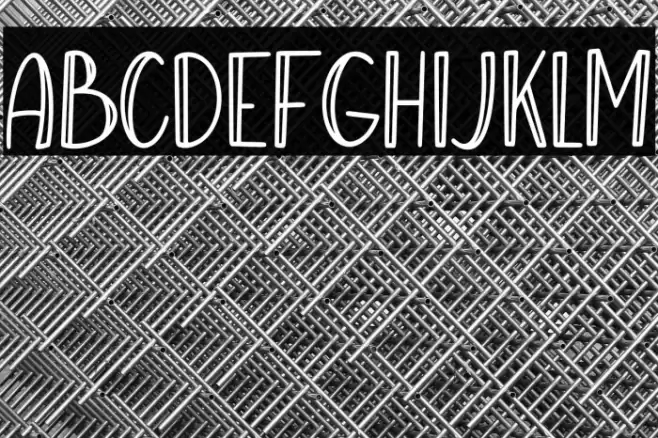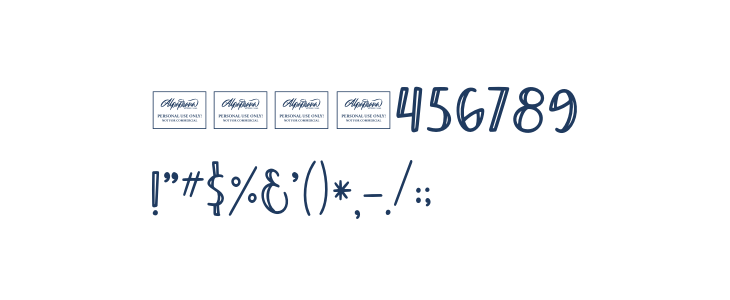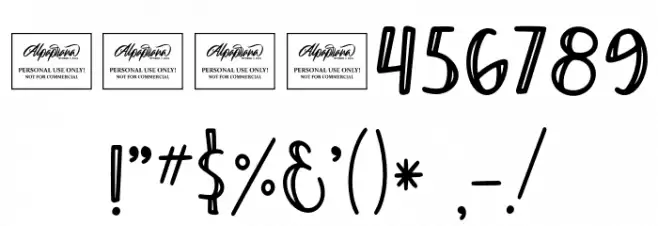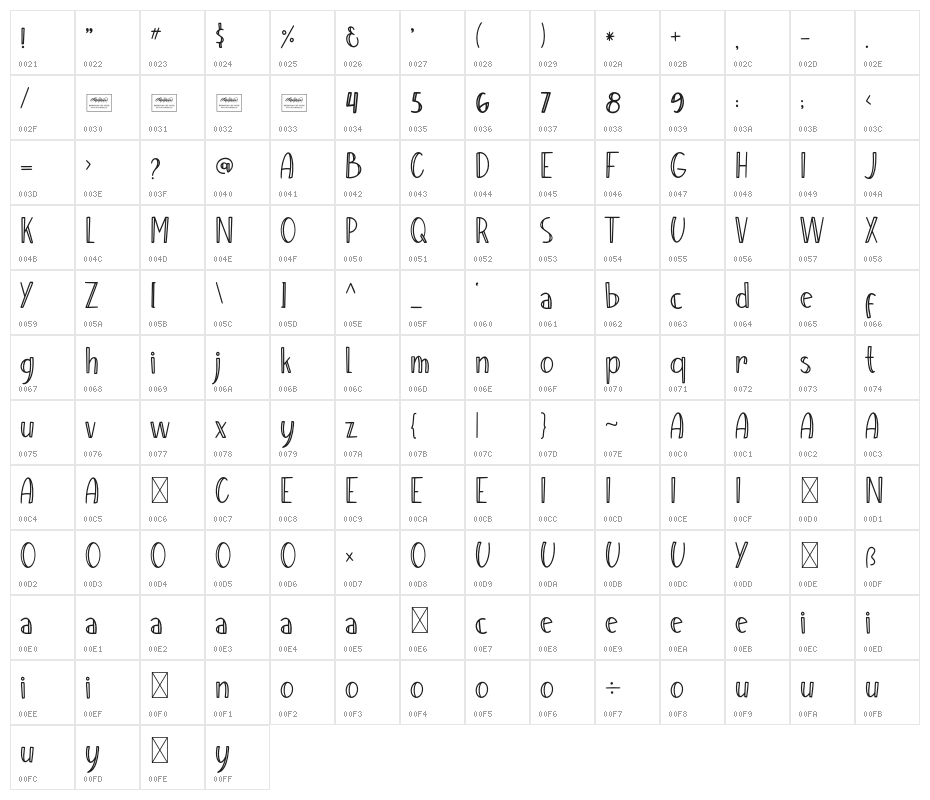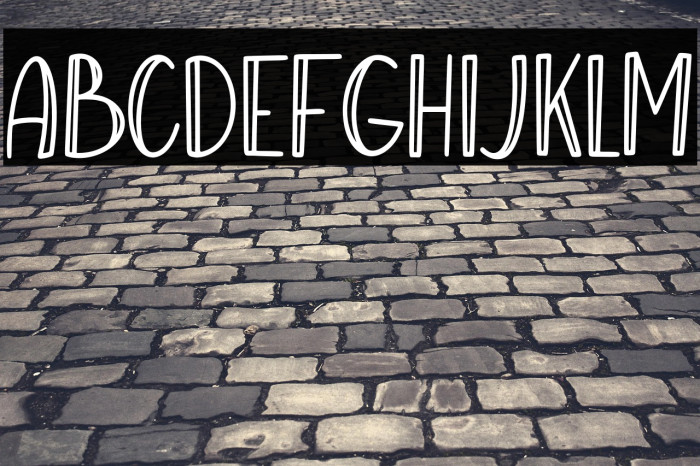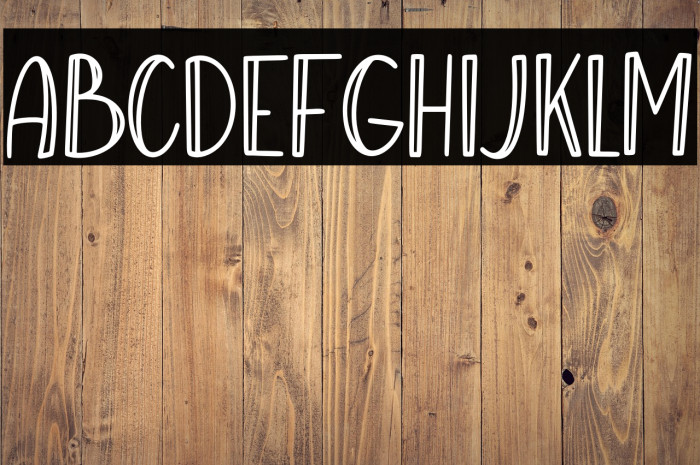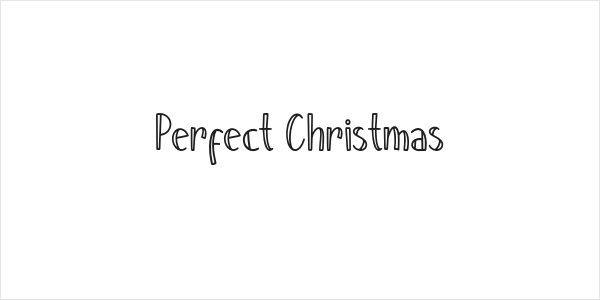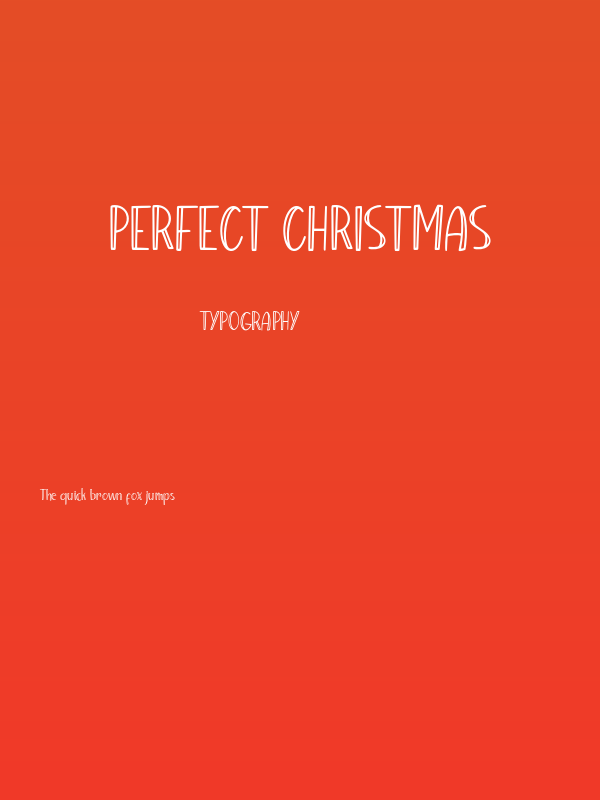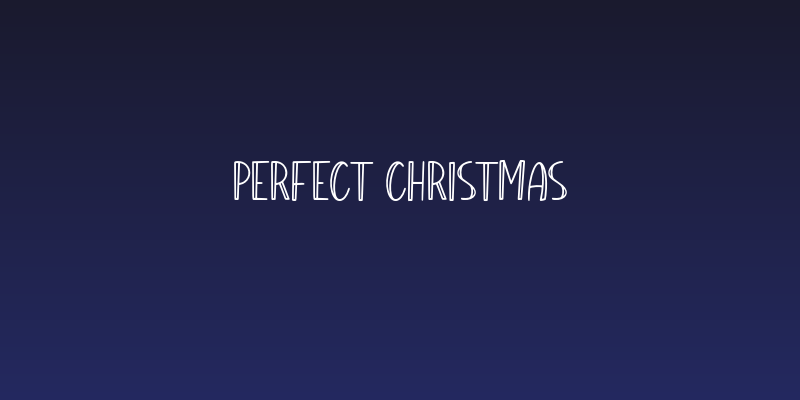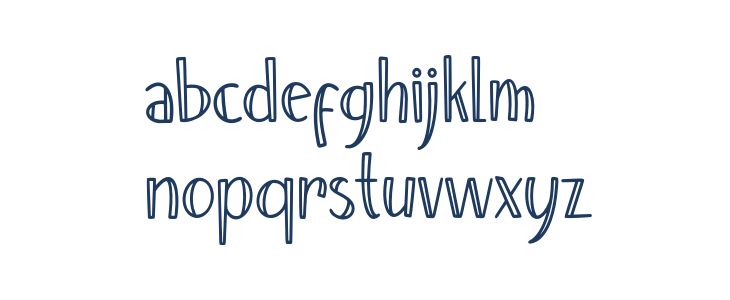
Perfect Christmas Font
Perfect Christmas Description
This font features a playful and whimsical design, characterized by its tall, narrow letters with a slight slant. The strokes are consistent in width, giving it a uniform appearance. The uppercase letters are bold and prominent, while the lowercase letters maintain a similar style with a slightly more relaxed form. Numbers and special characters follow the same playful aesthetic, making this font ideal for festive and cheerful designs. The overall style is modern with a touch of fun, suitable for projects that require a lively and engaging typeface.
A playful, whimsical font with tall, narrow letters and consistent stroke width from Uncategorized fonts.
- Font: Perfect Christmas
- Proposed Projects: Ideal for holiday cards, festive invitations, playful branding, and children's book covers.
- Overall Style: Modern, Playful
- Use Case: Headlines, Logos, Invitations